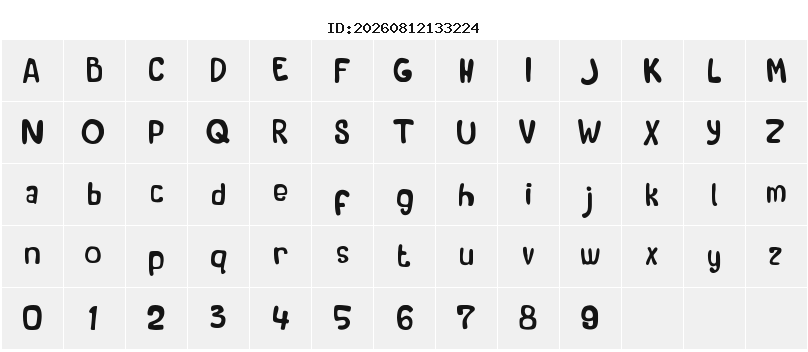
Roadshow IAIC 2013 Preview
About Roadshow IAIC 2013.ttf
Roadshow IAIC 2013.ttf is a modern, elegant sans-serif font designed for ultimate readability and visual harmony. Perfect for branding, headlines, web design, and print materials.